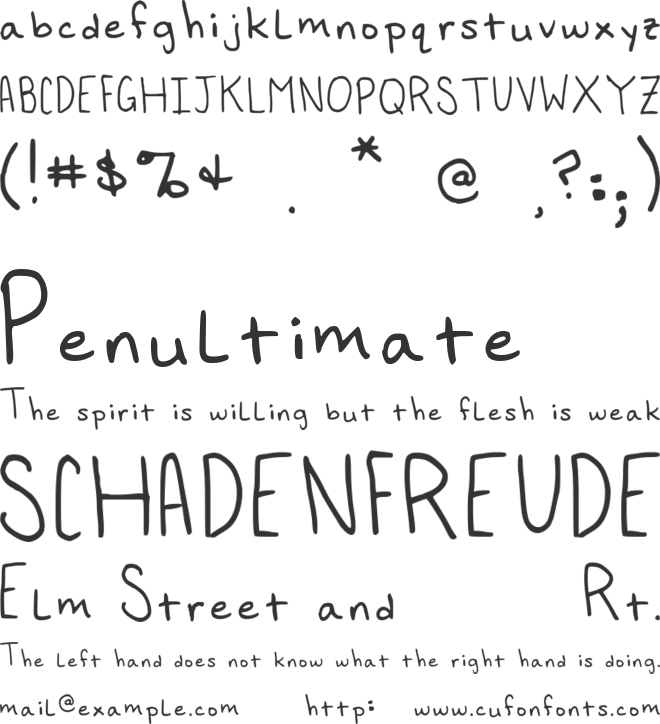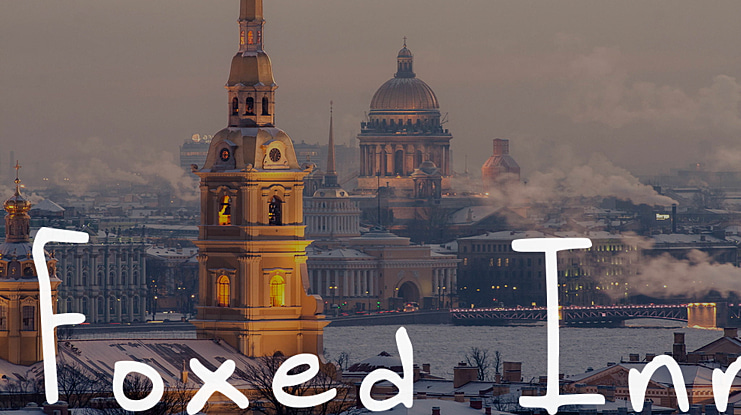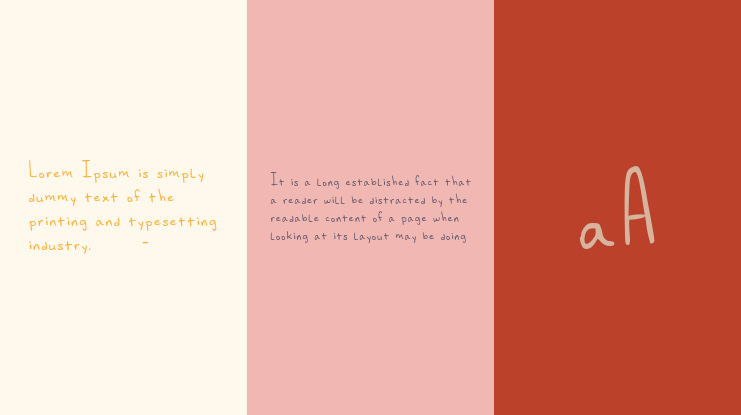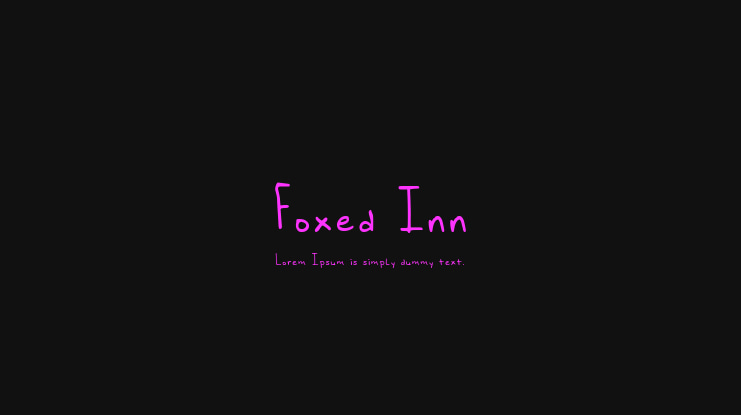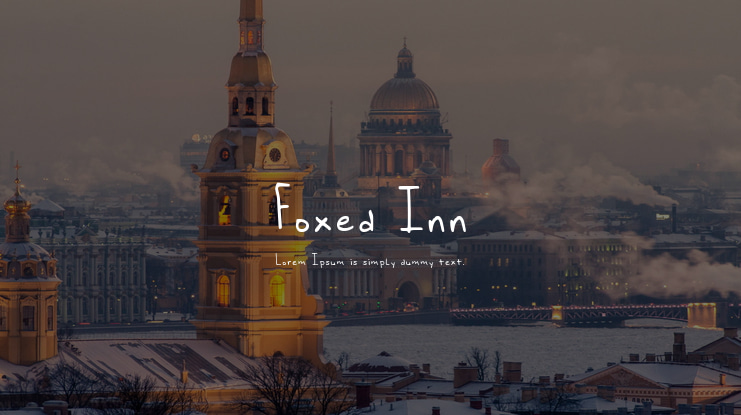
Foxed Inn Font
This is my handwriting. Please feel free to use it if you like it. The only rule - do NOT use this for promoting hate speech of any kind.